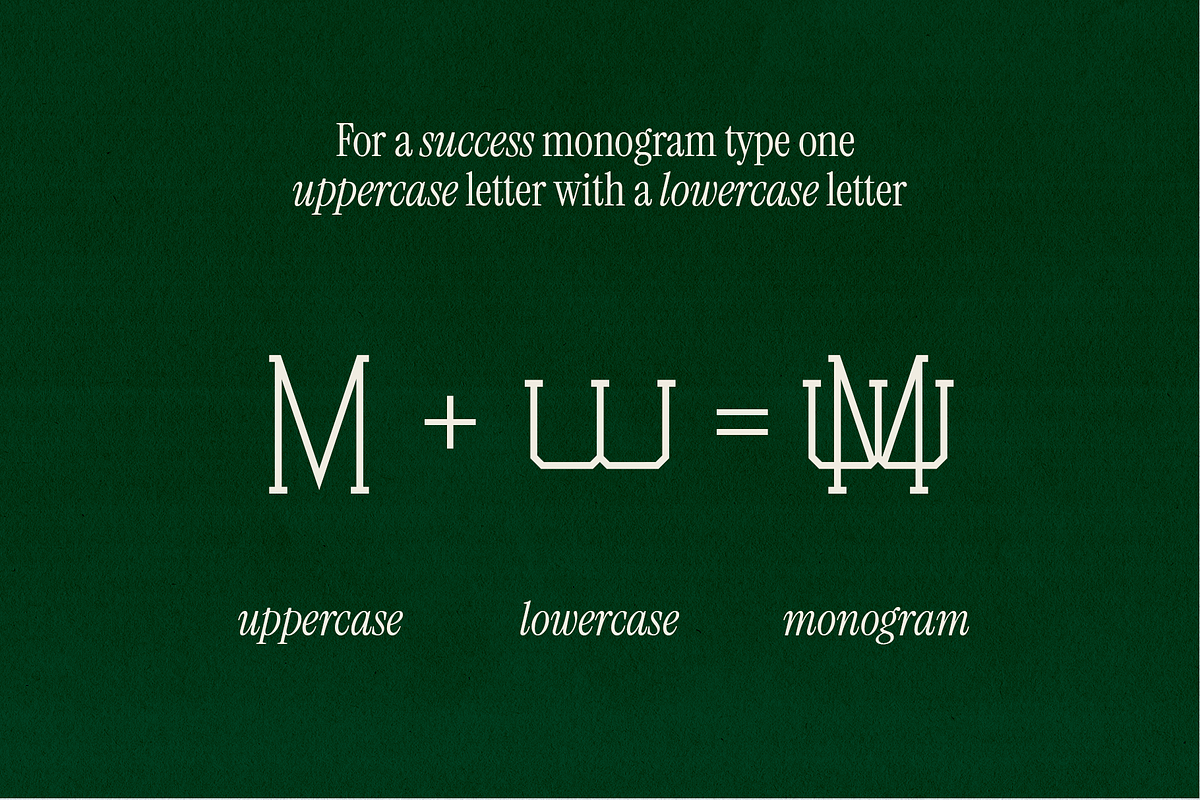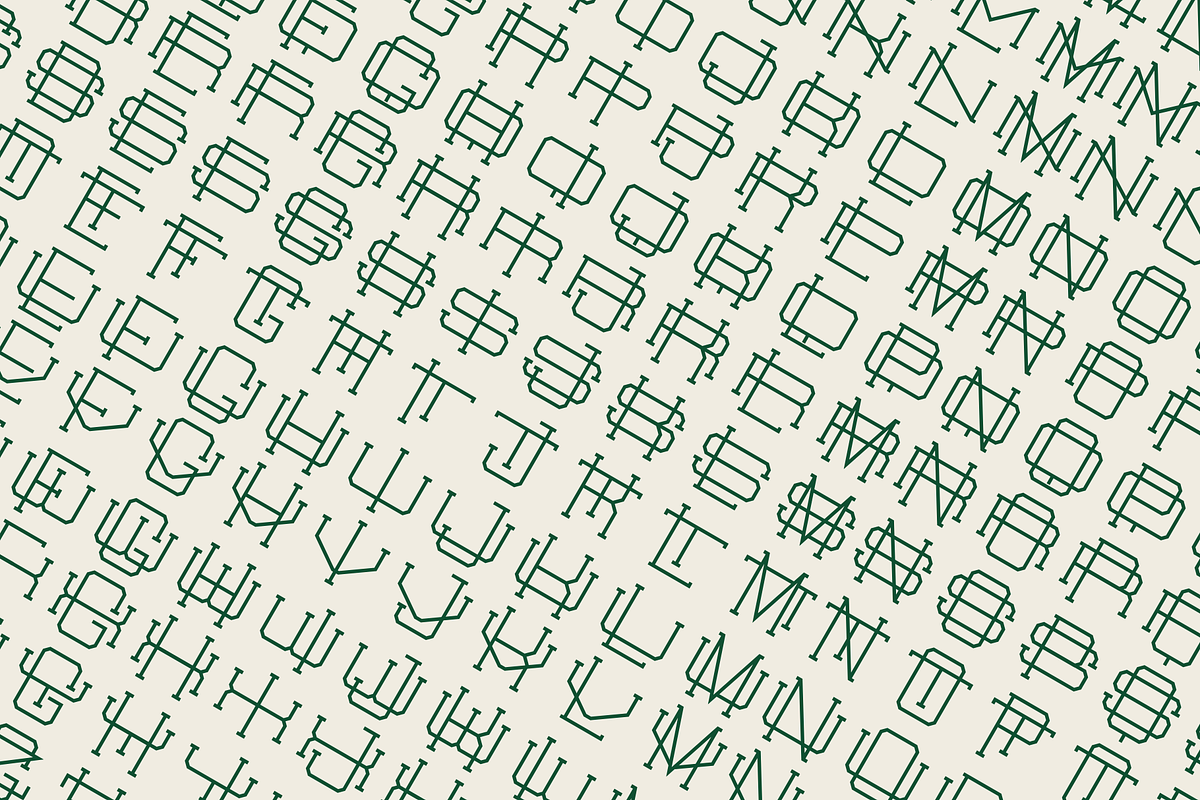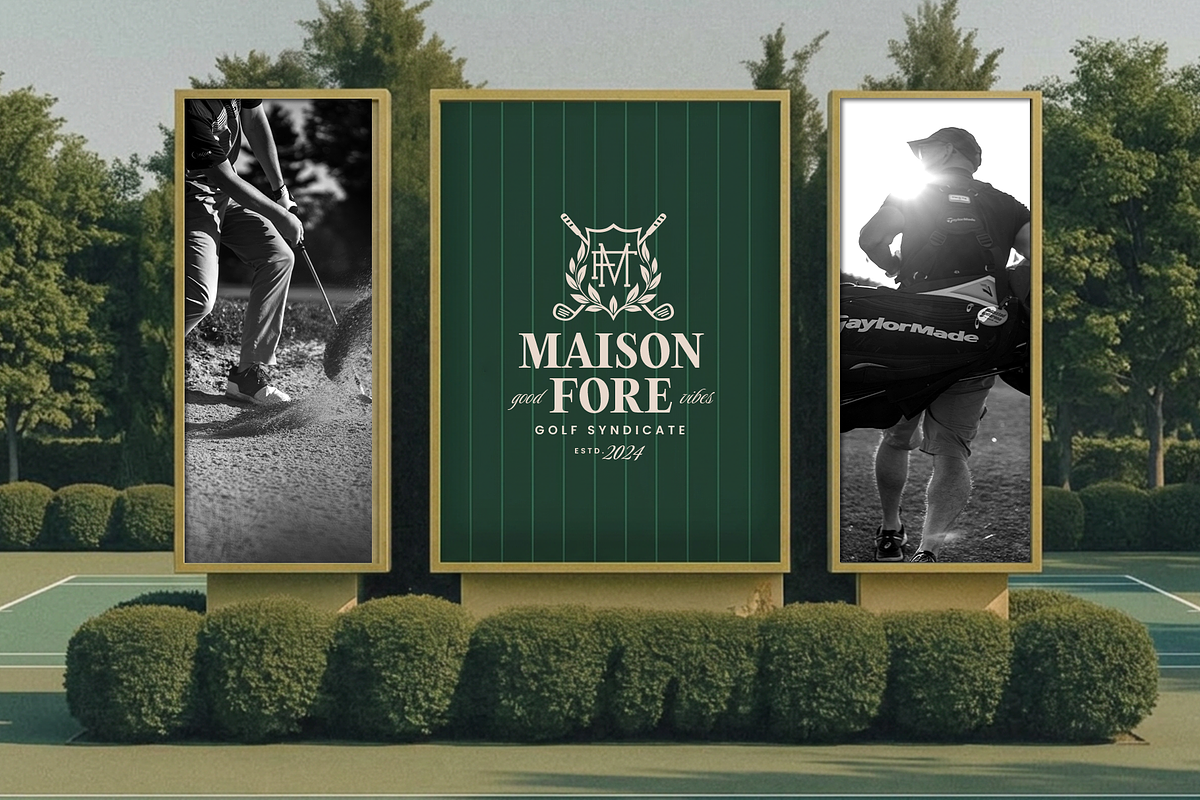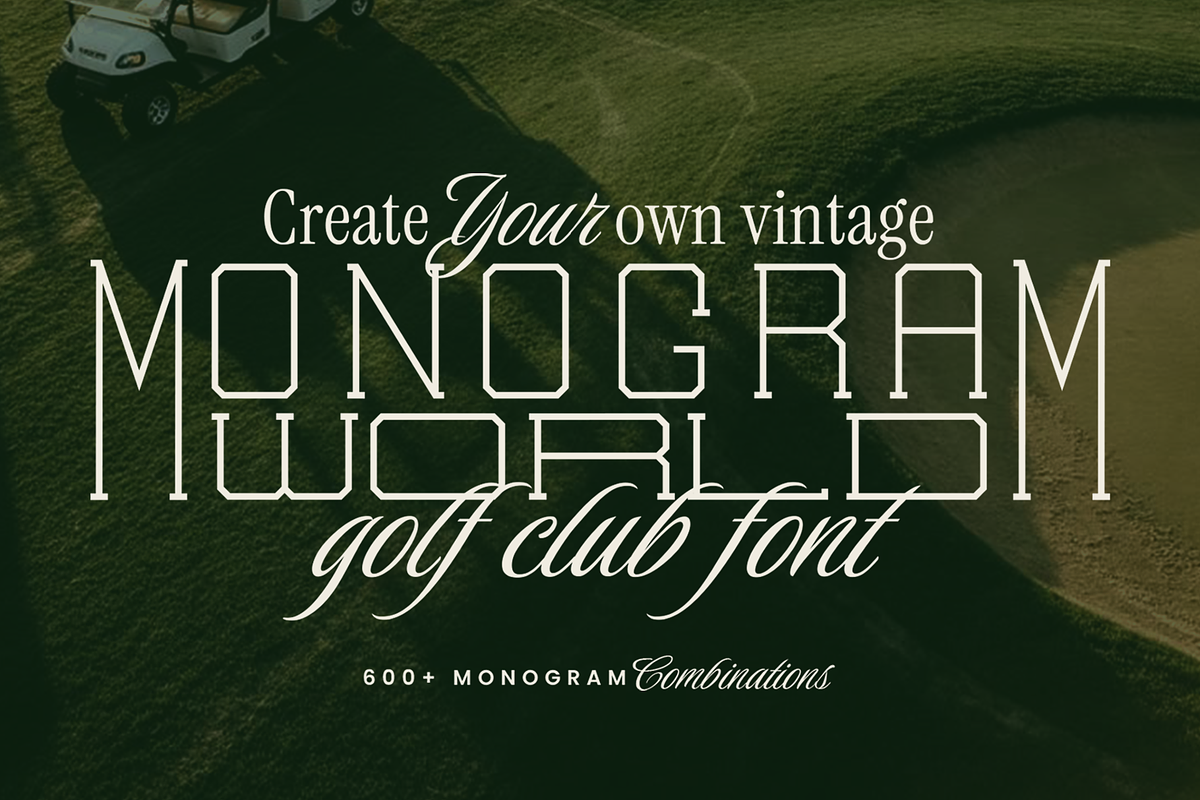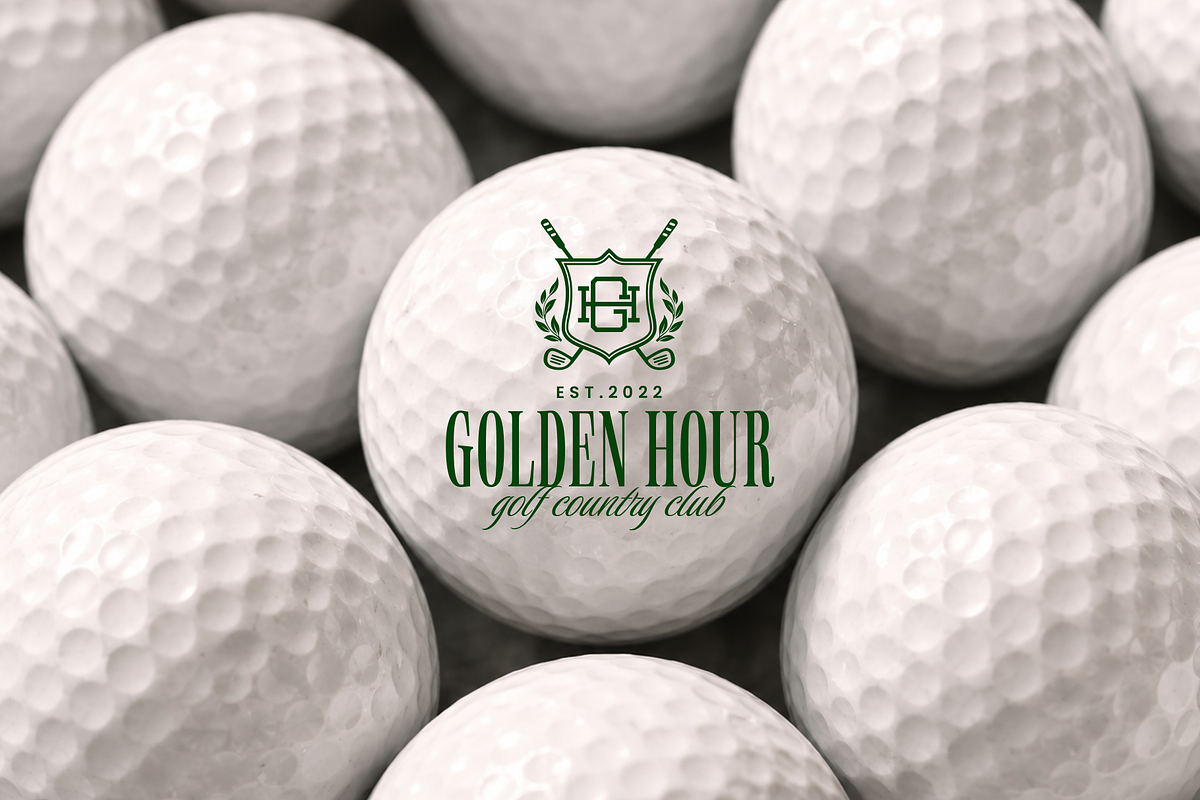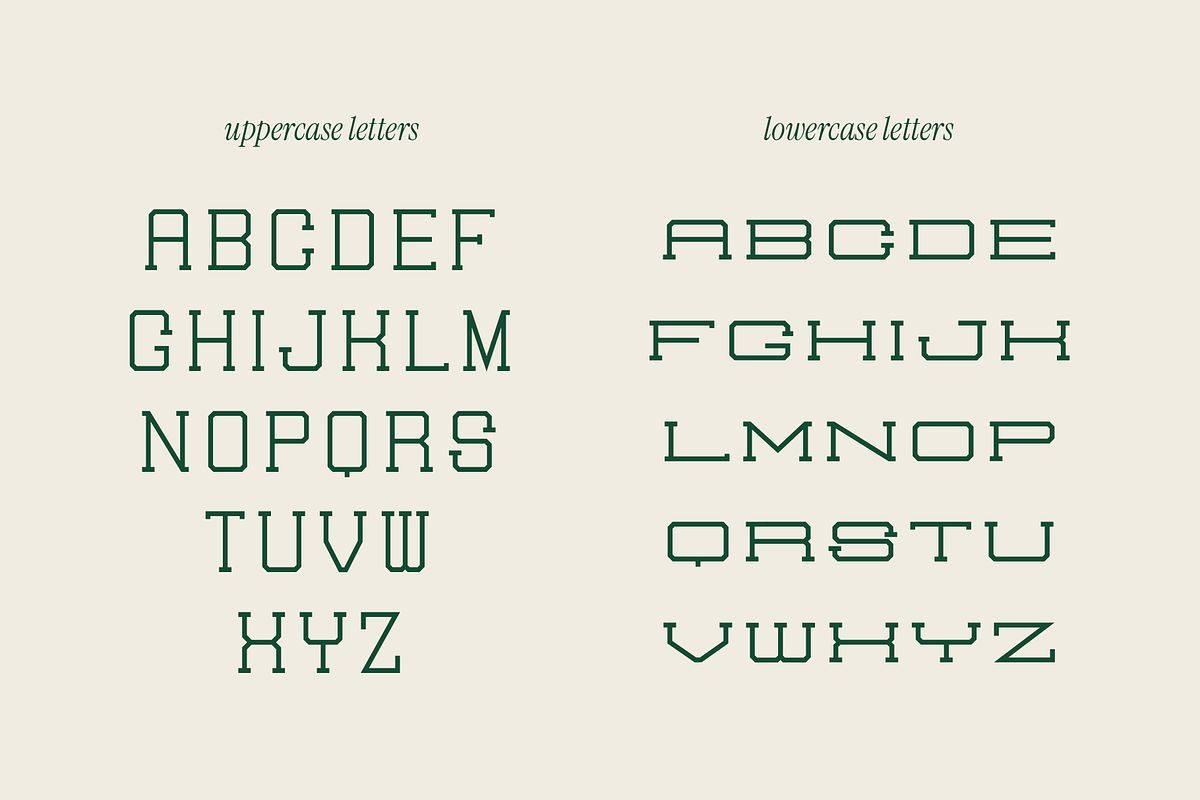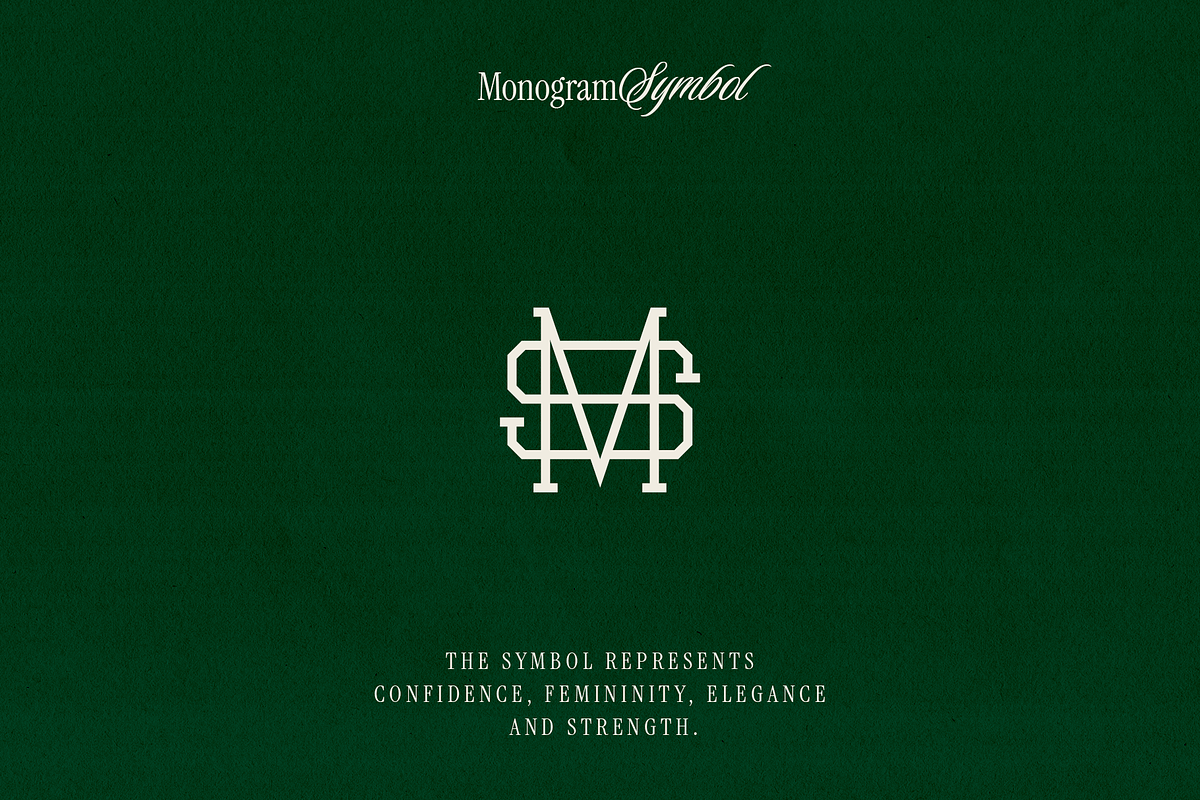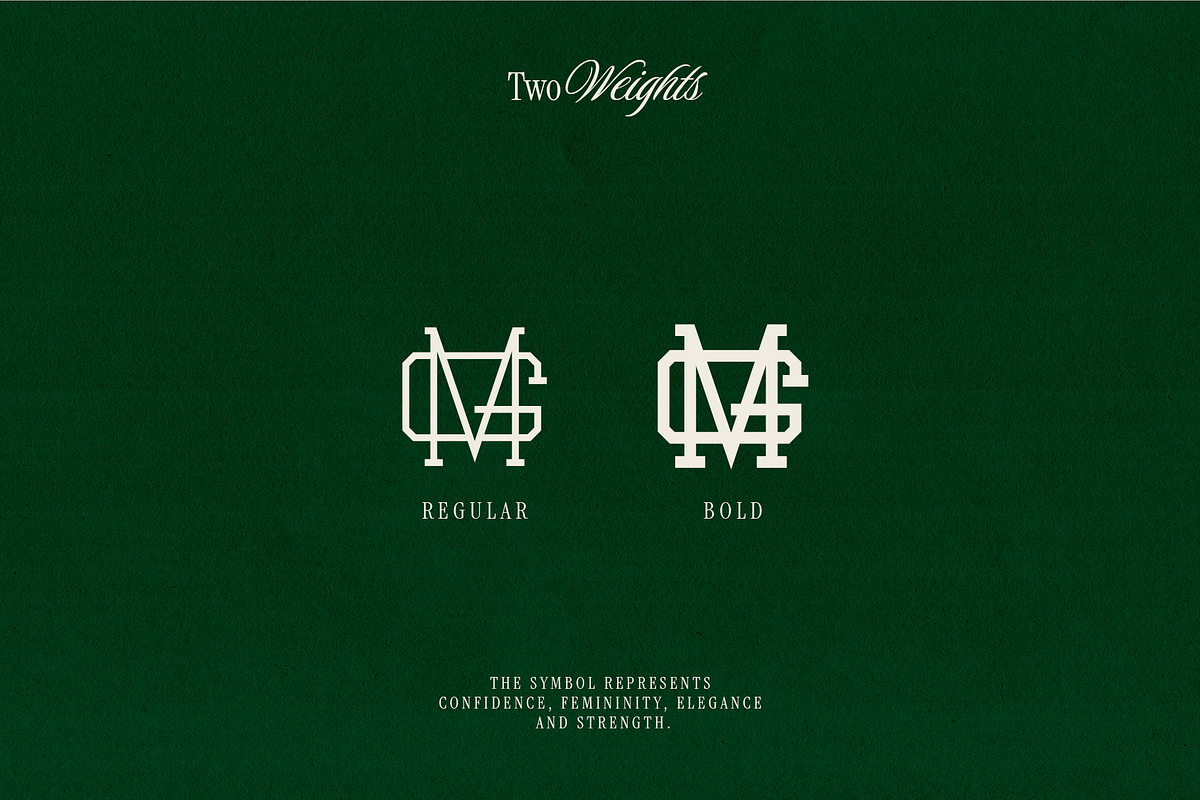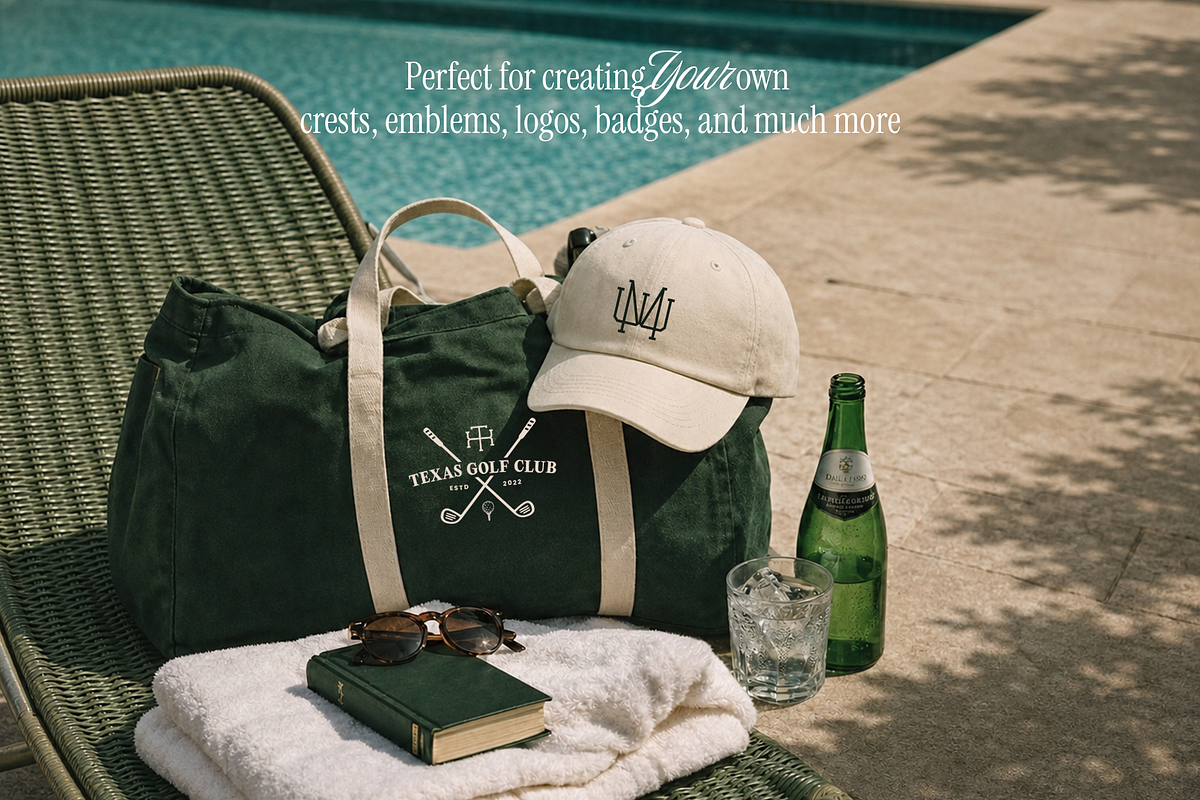
Monogram World Slab
Monogram World Slab is a bold college monogram font creator built for prestige, heritage and old-money branding. Type one uppercase an one lowercase letters and they merge instantly into a strong, balanced monogram, made for golf clubs, college and university marks, polo and country-club branding, and preppy, timeless identities.
The heavy slab construction reads with authority at any size, from a crest on a blazer to a sign at the clubhouse. Hundreds of pre-made monogram combinations are built in as automatic ligatures, so you get that classic collegiate look with zero manual work. Includes uppercase and lower-uppercase characters.